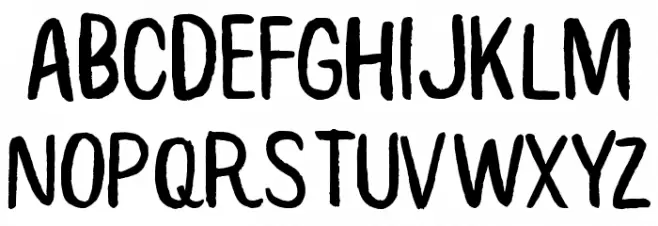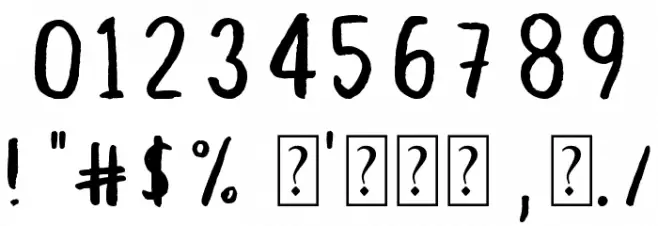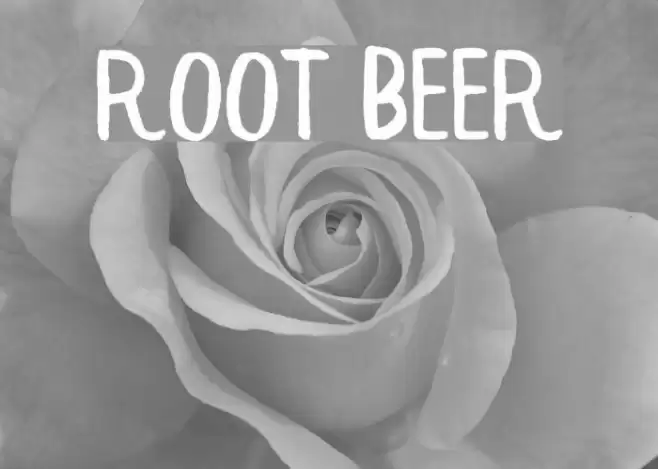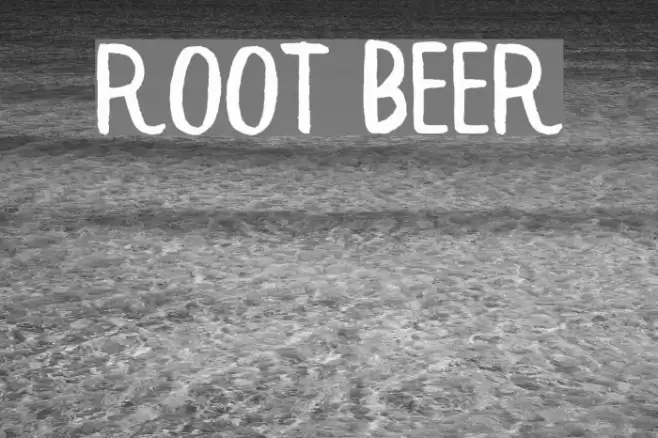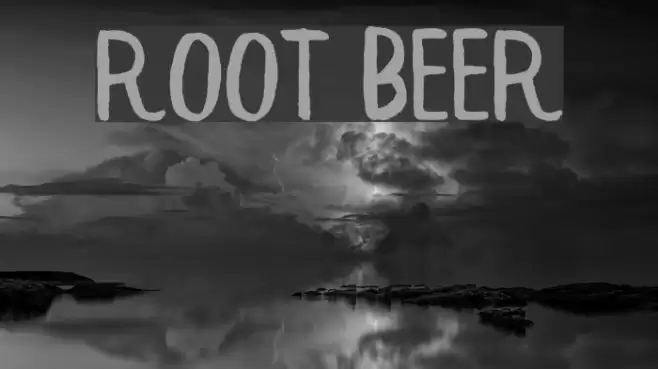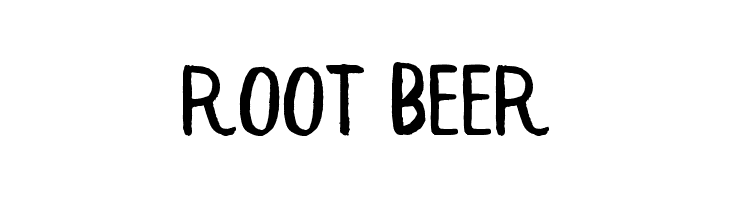
Root Beer
This font features a bold and playful handwritten style, characterized by its thick strokes and slightly irregular letterforms that give it a casual, friendly appearance. The uppercase and lowercase letters maintain a consistent weight, contributing to a cohesive look. The numerals are clear and legible, matching the style of the alphabet. Special characters are included, adding versatility for various uses. The overall aesthetic is reminiscent of hand-drawn lettering, making it suitable for projects that require a personal touch. Its boldness ensures visibility, while the informal style adds a touch of whimsy.
A bold, playful handwritten font with thick strokes and a casual style.
- Proposed Projects: Ideal for greeting cards, posters, children's books, and branding that requires a personal, friendly touch.
- Overall Style: Casual, Playful
- Use Case: Headlines, Logos, Posters